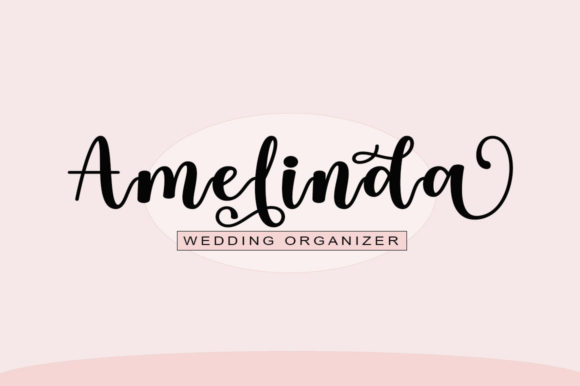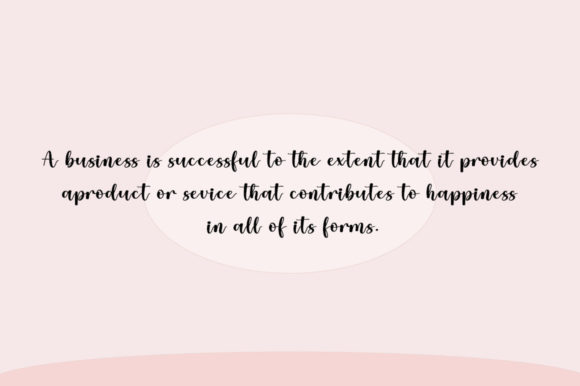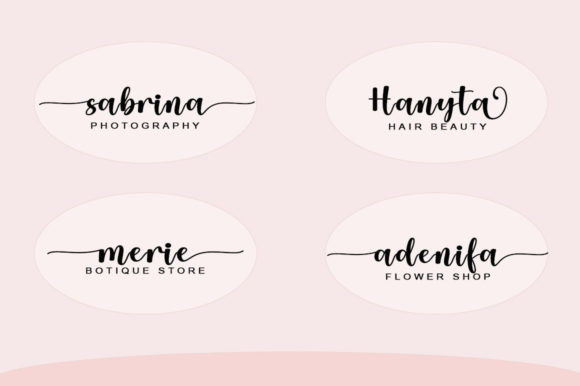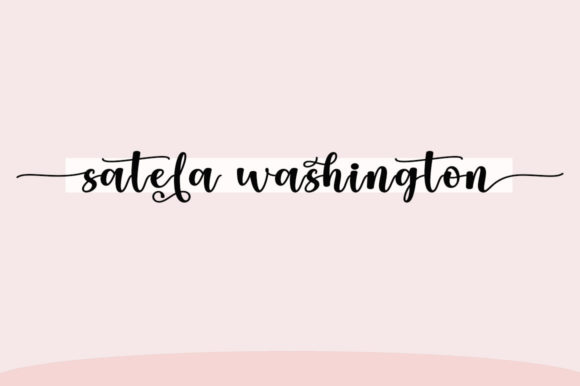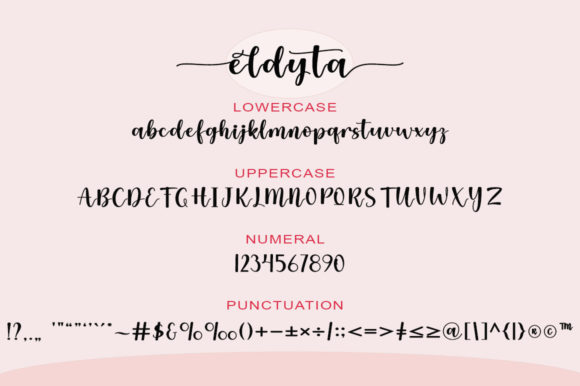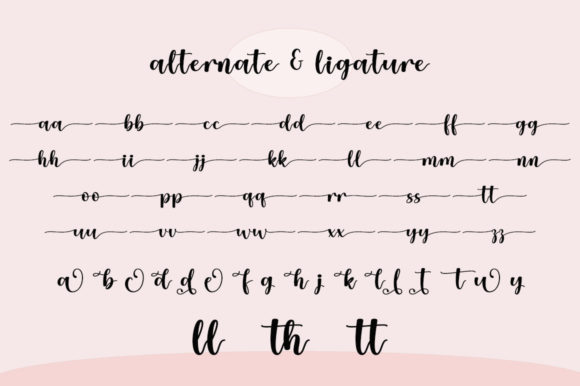
Introduction to Eldyta Font
Eldyta is a lovely script font featuring charming, playful characters that seem to dance along the baseline.
This font is PUA encoded which means you can access all of the glyphs and swashes with ease .
Key Features of Eldyta Font